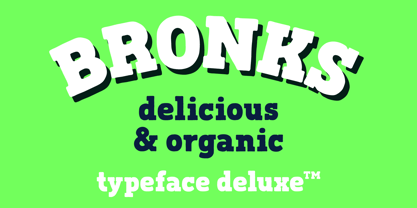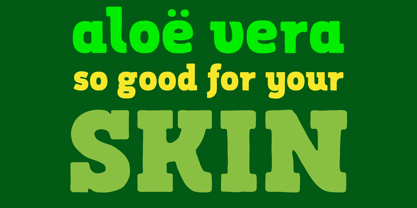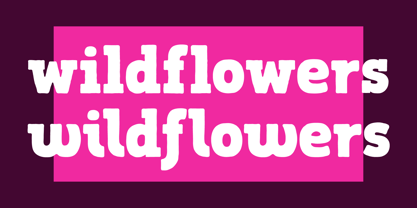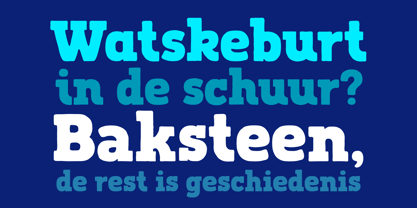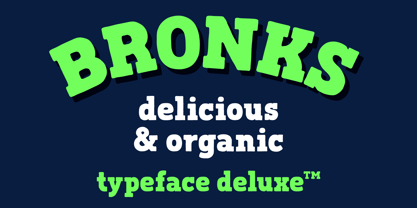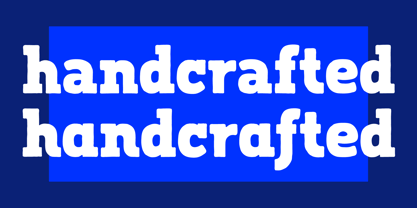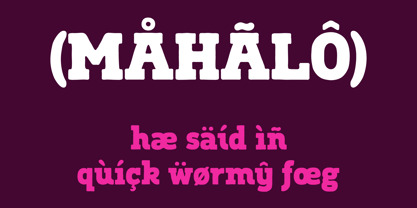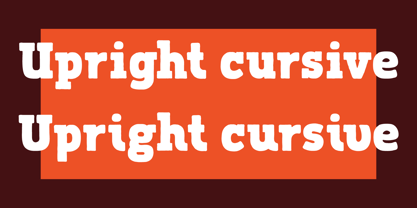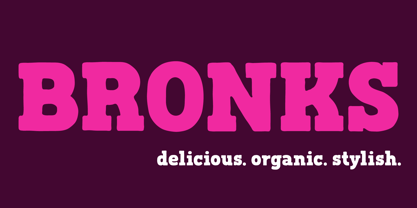
Bronks
Bronks is a warm, organic serif display typeface with a distinctive hand-drawn character. Bold, expressive serifs and irregular letterforms combine the strength of traditional typography with the warmth and personality of hand lettering. The result is a typeface that feels crafted, grounded, and distinctly human.
What sets Bronks apart is the contrast between its solid serif forms and its upright cursive alternates. Characters can switch between a regular serif form and a more flowing handwritten version, creating subtle shifts in rhythm and personality while retaining a strong typographic presence. Used selectively, these alternates give words the feeling of custom lettering rather than simply set type.
Bronks works equally well in contemporary and rustic settings. Its sturdy forms create a bold, confident presence, while its organic details add warmth and individuality. It is particularly suited to brands connected to food, craft, nature, agriculture, outdoor culture, hospitality, and sustainable living.
The upright cursive alternates make Bronks especially versatile for logos, packaging, labels, headlines, posters, signage, editorial design, and social media graphics. Words retain their strength and legibility, while individual letters can introduce a playful, spontaneous, or expressive touch. Standard and discretionary ligatures add further character, while extensive Latin language support makes Bronks suitable for a wide range of professional applications.
Rather than striving for perfect uniformity, Bronks embraces the small irregularities that make hand-drawn lettering feel alive. It is a sturdy, expressive serif with an earthy character, designed to feel crafted rather than composed.
Zeptonn is the creative studio of Dutch designer Jan Willem Wennekes. With a background in illustration, art direction, and graphic design, Wennekes brings a distinctly hand-drawn sensibility to type design. His fonts are known for their organic curves, soft edges, and approachable character, translating the craft of the illustrator’s pen into expressive digital letterforms.Zeptonn’s portfolio focuses on display typography: bold, playful, and highly distinctive fonts intended for use in headlines, logos, packaging, and other applications where personality and impact are key. The designs balance weight and softness—strong, solid shapes that remain friendly and inviting thanks to their curved contours and subtle irregularities.Underlying this typographic voice is a broader design philosophy rooted in optimism, simplicity, and imagination. Zeptonn typefaces are not neutral workhorses; they are fonts that radiate warmth, tell stories, and spark interaction. Whether used in branding, editorial design, or poster work, they bring a human touch that is as vibrant as it is versatile.